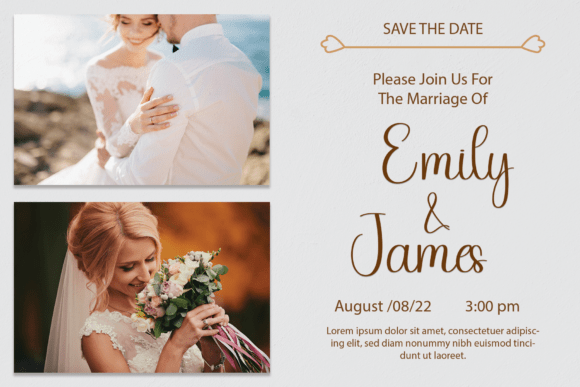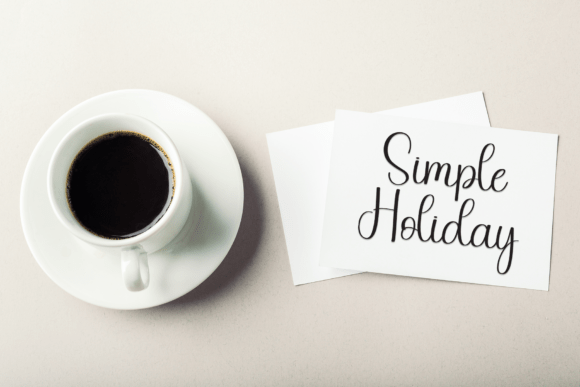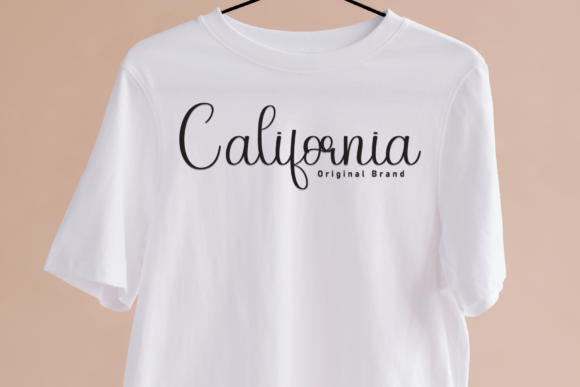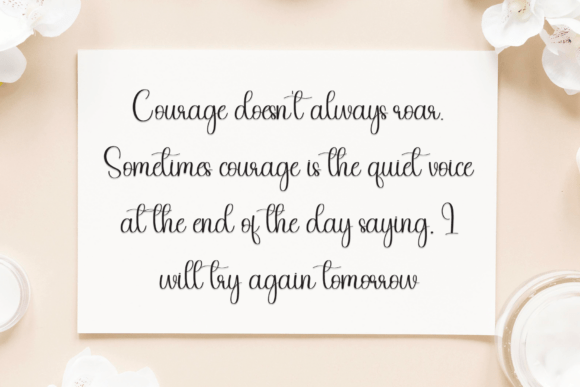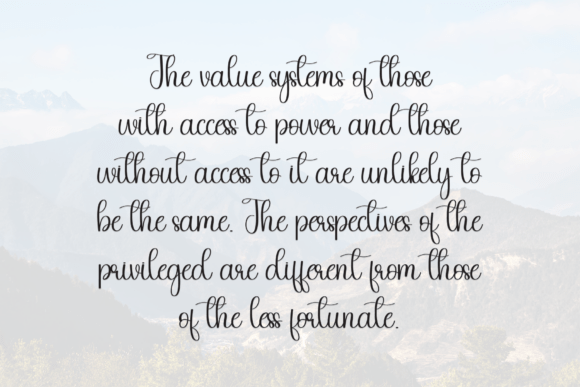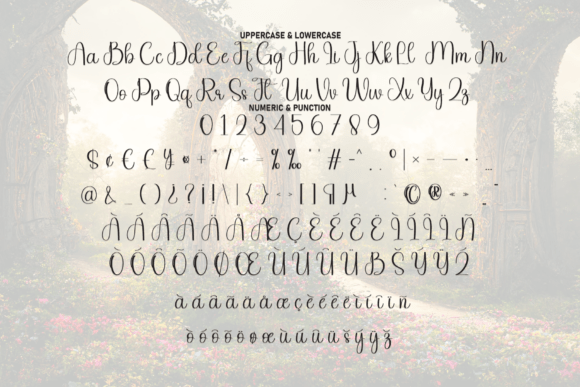
Introducing Fairytale Font: The Ultimate Elegant and Playful Script Font
Are you a designer, crafter, or creative looking for a font that can add a touch of magic to your projects? Look no further than Fairytale Font, a stylish handwritten script font that captures elegance and playfulness in every stroke. With its flowing curves and natural rhythm, Fairytale Font is the perfect addition to any project that requires a personal, charming touch.
The Characteristics of Fairytale Font
Fairytale Font is a beautifully designed script font that boasts a range of characteristics that make it stand out from the crowd. Its flowing curves and natural rhythm give it a sense of movement and fluidity, making it perfect for creating elegant and sophisticated designs. The font’s strokes are carefully crafted to convey a sense of playfulness and whimsy, adding a touch of magic to any project.
Uses for Fairytale Font
Fairytale Font is a versatile font that can be used in a variety of creative projects. Here are just a few ideas to get you started:
- Invitations: Add a touch of elegance and sophistication to your wedding invitations, birthday party invites, or baby shower announcements with Fairytale Font.
- Branding: Use Fairytale Font to create a unique and memorable brand identity for your business or product.
- Social Media: Add a personal touch to your social media posts and stories with Fairytale Font.
- Crafting: Use Fairytale Font to create beautiful and unique craft projects, such as handmade cards, gift tags, and scrapbook pages.
The Benefits of Using Fairytale Font
So why choose Fairytale Font for your next project? Here are just a few benefits of using this beautiful script font:
- Warmth: Fairytale Font brings a sense of warmth and coziness to any project, making it perfect for creating inviting and welcoming designs.
- Sophistication: The font’s elegant and refined design makes it perfect for creating sophisticated and high-end designs.
- Creativity: Fairytale Font’s playful and whimsical nature makes it perfect for sparking creativity and adding a touch of magic to any project.
Tips for Using Fairytale Font
Here are a few tips for getting the most out of Fairytale Font:
- Pair it with other fonts: Fairytale Font pairs beautifully with other fonts, such as sans-serif fonts or serif fonts. Experiment with different combinations to find the perfect look for your project.
- Use it in moderation: While Fairytale Font is beautiful, it can be overwhelming if used too much. Use it sparingly to add a touch of elegance and sophistication to your design.
- Experiment with colors: Fairytale Font looks beautiful in a range of colors, from bold and bright to soft and pastel. Experiment with different colors to find the perfect look for your project.
In conclusion, Fairytale Font is a beautiful and versatile script font that is perfect for adding a touch of elegance and playfulness to any project. With its flowing curves and natural rhythm, it’s the perfect choice for designers, crafters, and creatives looking to add a personal and charming touch to their designs. Whether you’re creating invitations, branding, social media posts, or craft projects, Fairytale Font is sure to bring warmth, sophistication, and creativity to your work.